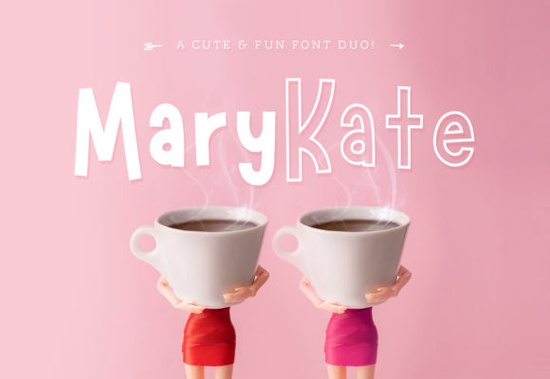
If you're looking for a friendly, flexible font that works just as well on a hand-lettered wedding invitation as it does on a modern t-shirt design, the Marykate Font is worth your time. It’s not overly decorative or hard to read instead, it strikes a relaxed balance between playful and professional. That makes it especially useful if you’re designing for real-world projects where clarity and charm both matter.
What kind of font is Marykate?
Marykate is a sans-serif font duo: one version with solid letterforms and another with clean outlines. Both share the same friendly proportions and open spacing, so they pair effortlessly no guessing required. You’ll get OTF and TTF files, plus basic ligatures and stylistic alternates, all ready to drop into Canva, Silhouette Studio, Cricut Design Space, or Adobe apps.
Unlike some display fonts that only shine at large sizes, Marykate scales well from tiny blog headers to oversized wall art. It’s not a script or handwritten style, but it still feels personal and approachable. Think of it as the kind of typeface you’d choose when you want your message to feel warm without sacrificing legibility.
Where does Marykate work best?
Because it’s versatile by design, Marykate fits naturally into several common creative workflows:
- Home decor: Vinyl decals, framed prints, or chalkboard-style signs the outline version adds subtle dimension, while the solid version holds up beautifully on wood or fabric.
- Wedding stationery: From save-the-dates to place cards, its gentle curves and even rhythm keep things elegant but unstuffy.
- Print-on-demand products: Works reliably on mugs, tote bags, and phone cases especially where contrast matters (e.g., light text on dark backgrounds).
- Branding & small business graphics: Logos, social media banners, or email headers it’s distinct enough to stand out, but neutral enough not to distract from your message.
You don’t need advanced typography knowledge to use it well. If you’ve ever hesitated before picking a font because you weren’t sure whether it would “read” right on a physical product or look dated in six months, Marykate simplifies that choice.
How does it compare to similar fonts?
Like other sans-serif fonts designed for crafters, Marykate focuses on usability first but it stands out in how evenly the two styles (solid + outline) coordinate. Some duos feel like afterthoughts; here, the outline isn’t just a traced version it’s carefully adjusted for weight and spacing.
If you’ve used Houte Font before, you’ll notice Marykate has a slightly softer shape and more generous x-height, which helps readability at smaller sizes. Houte leans a bit more geometric and structured; Marykate breathes a little more. Neither is “better” they’re just different tools for different moods.
Who is this font really for?
It’s ideal for people who design and make not just graphic designers, but also makers who cut vinyl, sew fabric labels, or assemble digital kits. Teachers creating classroom posters, Etsy sellers updating their shop banners, church volunteers designing event flyers all benefit from a font that installs easily and looks intentional without needing tweaks.
Small business owners appreciate that it avoids trends that age quickly. There’s no heavy shadow, no exaggerated terminals, no forced quirkiness. Just clean shapes, consistent spacing, and quiet confidence.
Real-world tips for using Marykate
Here’s what users consistently report working well:
- Use the outline version for layering try it behind a solid color block or with a subtle inner shadow for depth.
- Pair it with a simple serif (like Playfair Display or Lora) for contrast in invitations or blog headers the combination feels balanced, not busy.
- For Cricut or Silhouette projects, convert text to outlines before cutting especially with the outline version to avoid thin strokes collapsing.
- When using on apparel, test print a small swatch first. The rounded corners hold up well on most fabrics, but tight kerning (like “AV” or “To”) may need slight manual adjustment depending on your printer.